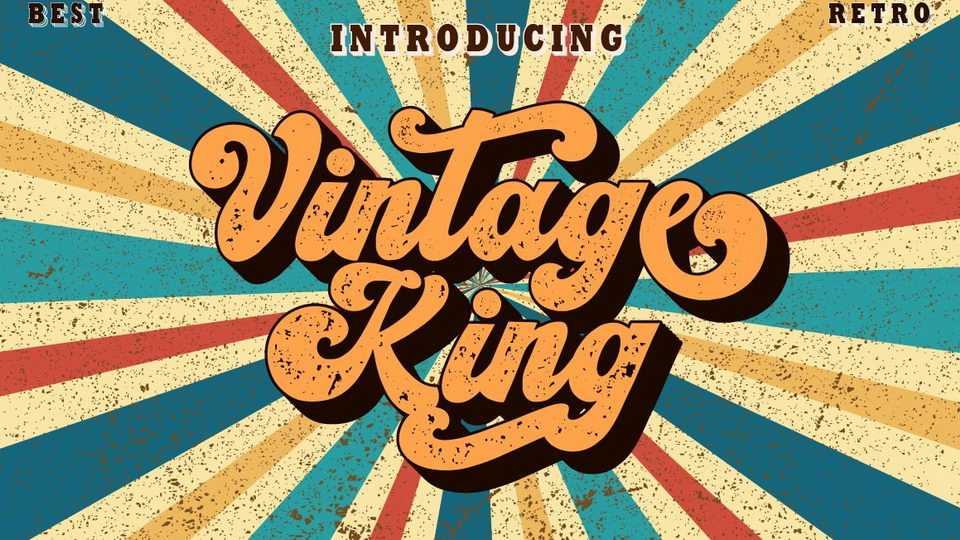
Download Vintage King font, a retro bold script typeface, inspired from retro typography and lettering in the 70’s and 80’s combine with bold typography style.
Designer: PutraCetol Studio